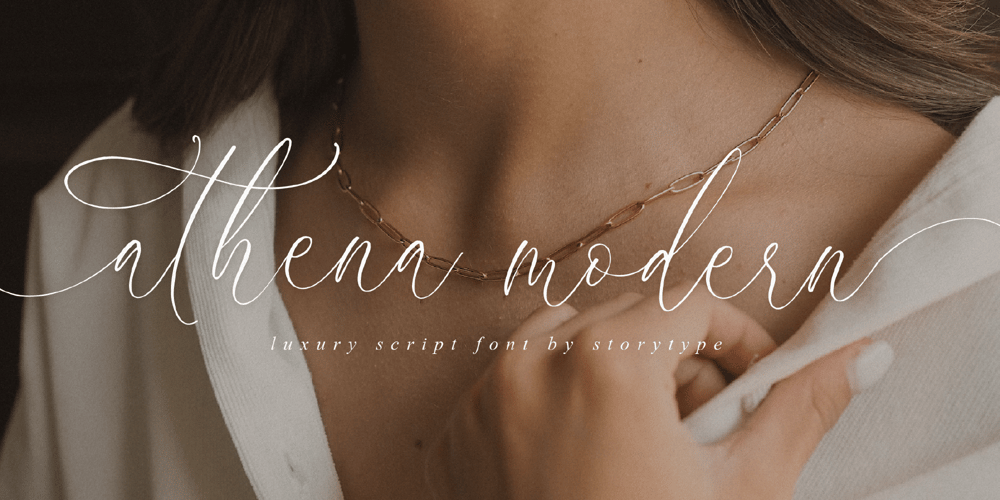
Athena Modern Font Family was designed by Heru Utama Putra and published by Letterena Studios. Athena Modern contains 2 styles and family package options. Proudly present Athena, a modern and luxurious script font with a unique style and fancy look. This typeface is perfect for an elegant & luxury logo, book or movie title design, fashion brand, magazine, clothes, lettering, quotes, and so much more.This font is PUA encoded, which means you can access all of the glyphs and swashes with ease!